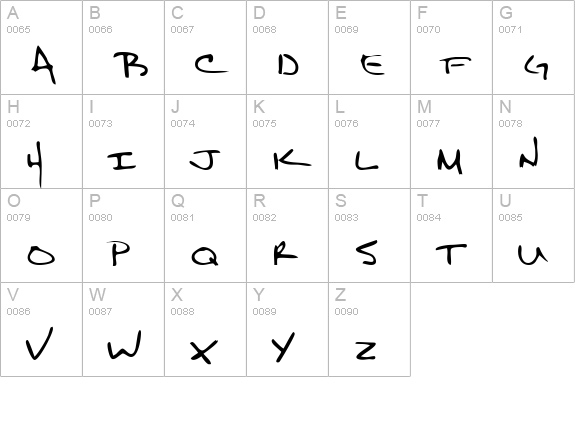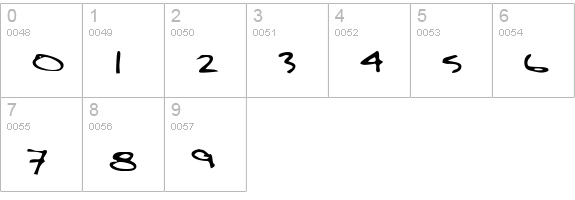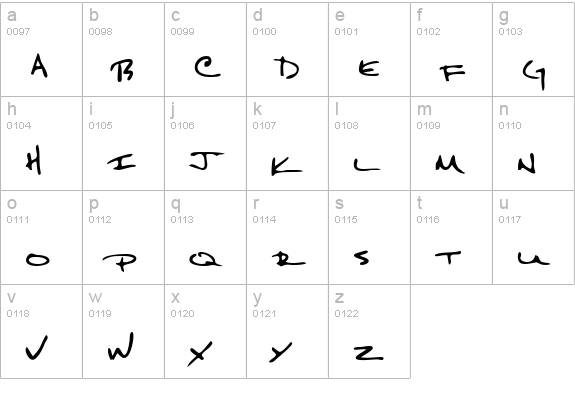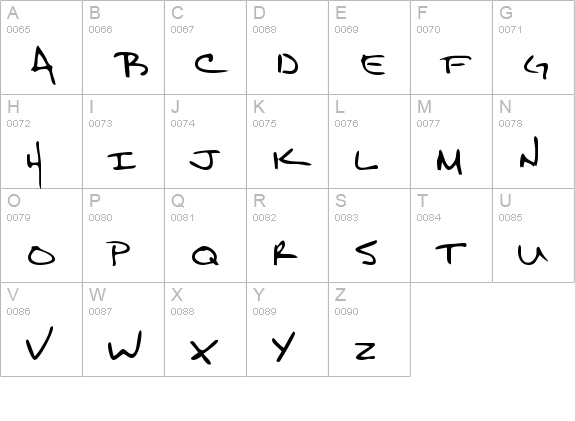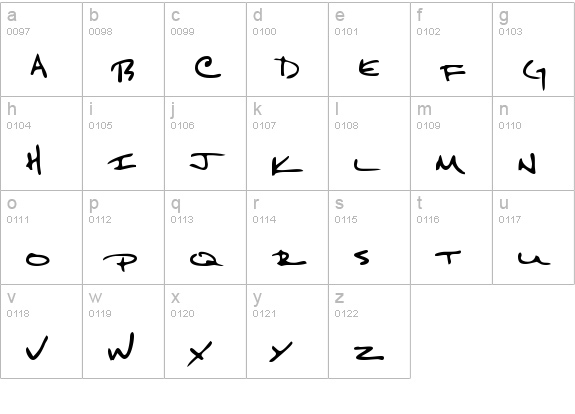
KeithsHand Font Details
Introducing KeithsHand, a delightful and charming font that will add a touch of whimsy to your designs. With its playful and slightly uneven letterforms, this font exudes a sense of hand-drawn authenticity that is sure to captivate your audience. KeithsHand is perfect for a variety of creative projects, from greeting cards and invitations to logos and branding. Its unique style adds a personal and intimate feel, making it ideal for projects that require a friendly and approachable touch. What makes KeithsHand even more amazing is that it is available for free! That's right, you can easily download this incredible font at FontsMarket.com without spending a dime. Whether you're a professional designer or a hobbyist, you can now access this beautiful font without any barriers. With KeithsHand, the possibilities are endless. Let your imagination run wild as you explore the versatility and playfulness of this font. Whether you're designing for a children's book, a whimsical website, or a quirky poster, KeithsHand will bring your ideas to life in a truly unique and captivating way. So why wait? Don't miss out on the opportunity to enhance your designs with this exceptional font. Download KeithsHand today, freely available at FontsMarket.com, and let your creativity soar to new heights.